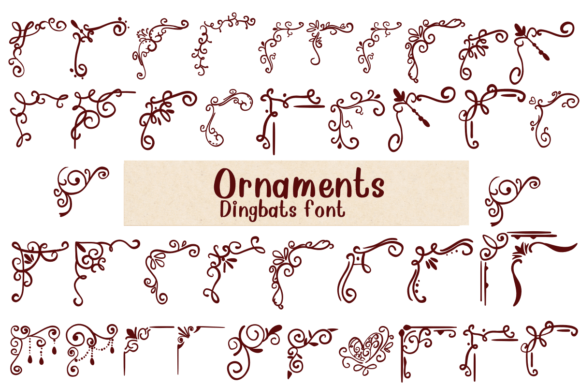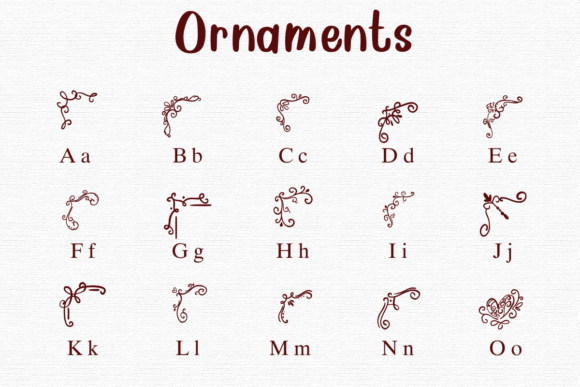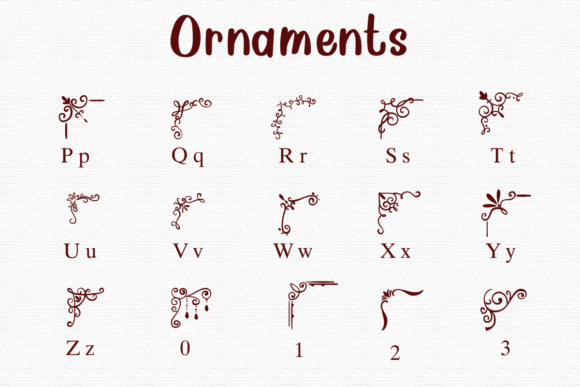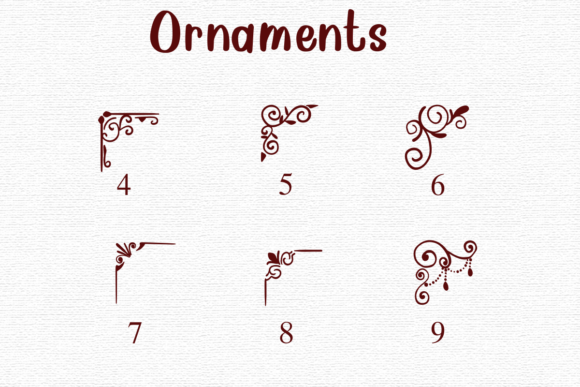
Ornaments Font
About the Ornaments Font
Meet Ornaments Font, a stunning font that brings a touch of elegance and professionalism to any design. “Ornaments” is a special type of font that has pretty designs you can use in the corners of your pages or documents. Instead of letters or numbers, it has small decorative symbols. You can add these ornaments to make your writing look fancier or more stylish.
“Ornaments” excels as a decorative element in projects requiring a touch of vintage charm or ornate detail. It works best for short, impactful text such as headings, logos, or invitations, adding a refined flourish to otherwise simple typography. Avoid using it for body text or lengthy passages; its intricate nature can quickly become overwhelming and hinder readability.
Consider pairing “Ornaments” with a clean sans-serif like Helvetica Neue for a modern contrast, or a classic serif such as Garamond for a more traditional feel. For a more playful effect, a script font with a similar weight could create a cohesive yet dynamic pairing. Avoid pairing with other highly decorative fonts, as this would create visual clutter.
The font projects a personality that is both elegant and slightly playful, making it suitable for brands focused on luxury goods, boutique businesses, or projects with a vintage or romantic theme. Its decorative nature is best utilized sparingly, enhancing rather than dominating the overall design.